Fonts for CD Covers: How Typography Shapes a Musician’s Visual Identity
Have you ever judged an album before even listening to a single track simply because the CD cover looked compelling? Many listeners experience this. According to a 2023 Forbes report, visual branding can increase engagement by up to 80 percent. This proves that design is more than decoration; it is strategy.
In this article, you will explore how fonts for CD covers influence perception, mood, and storytelling. Whether you are an independent musician, a designer, or a creative marketer, understanding font psychology can elevate your project. Artikel ini tidak berbasis tutorial, hanya berisi insight, contoh nyata, serta inspirasi kreatif.
Why Fonts Matter in CD Cover Design
Typography can communicate emotion, genre, and identity in just a few seconds. The right font can:
- Strengthen brand recognition
- Clarify genre expectations
- Support visual storytelling
- Improve visibility in both digital and physical formats
Below, you will explore the most popular font styles used across the music industry.
25+ Best Fonts for CD Covers to Elevate Your Album Design
Choosing the right fonts for CD covers can transform your album artwork into a memorable visual identity. Below are some of the most compelling typefaces that bring personality, clarity, and emotion to your design.
1. Anorthic Modern Serif Font
Anorthic Font offers a refined balance of elegance and sharp detail, making it ideal for musicians who want a sophisticated and polished aesthetic on their CD covers. Its graceful strokes and premium appeal allow your album title to stand out with confidence, inspiring artists to explore how Anorthic can elevate their visual branding.
2. Borisna Modern Serif Font
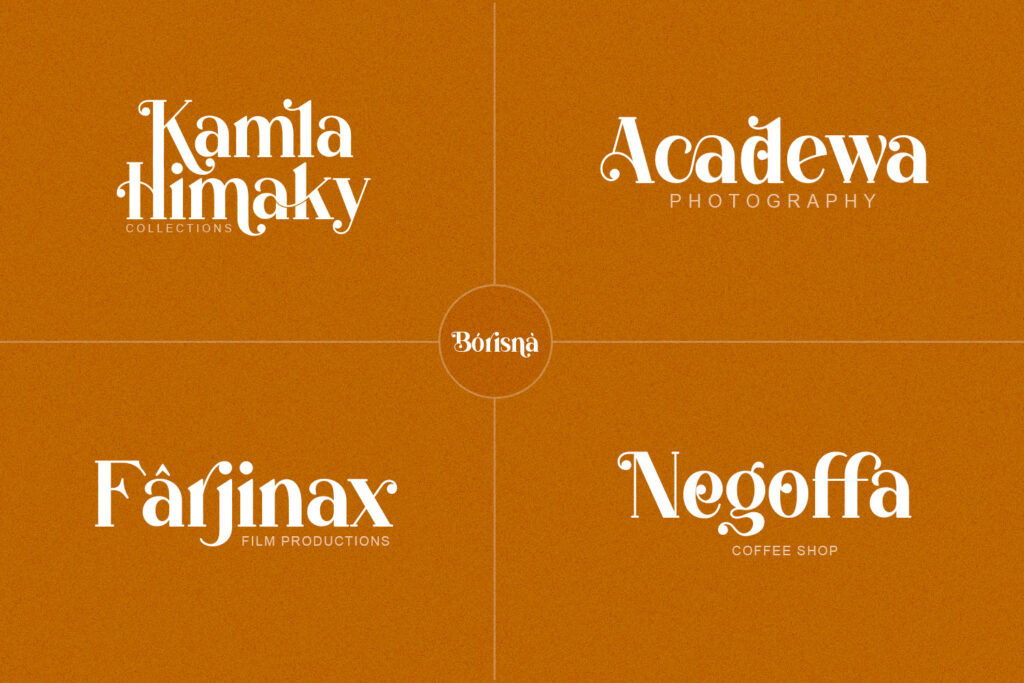
Borisna Font presents a clean, contemporary look with soft curves and stylish character. It works beautifully for genres that aim for a modern yet timeless feel, encouraging artists to integrate its warm visual tone into their CD covers for a distinctive and memorable presentation.
3. Bourne Display Font
Bourne Display Font brings bold personality and striking geometry, making it perfect for albums that need dramatic visual impact. Its attention-grabbing structure suits rock, metal, and experimental genres, inviting creators to express their boldest artistic identity with this standout font.
4. Domina Display Serif Font
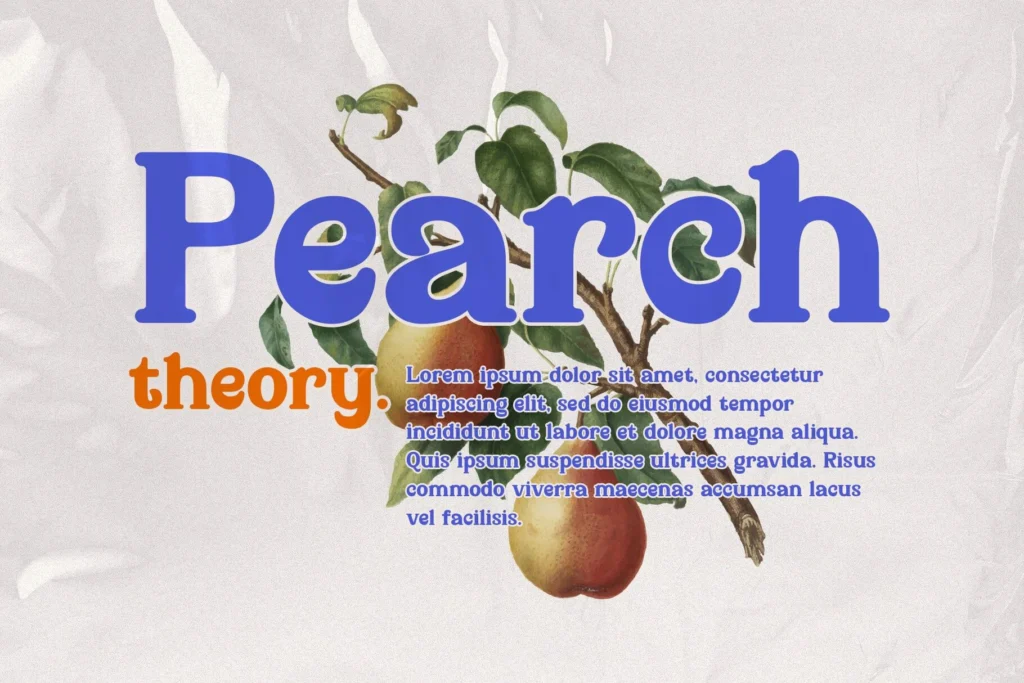
Domina Font offers a luxurious mix of classic serif elegance and artistic flair. With its confident posture and statement-making style, it supports musicians looking to express depth and sophistication on their album artwork, motivating designers to experiment with its stylish features.
5. Drive Ryder Font
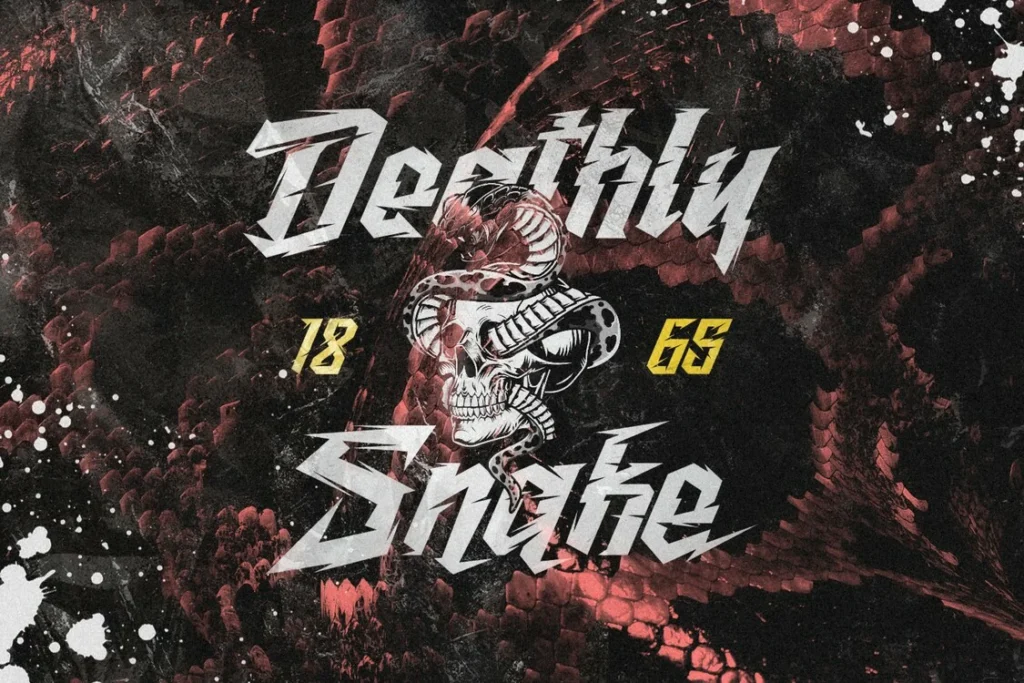
Drive Ryder Font captures a sense of motion, attitude, and retro energy. With its adventurous look, it suits rock, alternative, and cinematic album designs, encouraging artists to infuse dynamic personality into their CD covers through this energetic typeface.
6. Garo Serif Font
Garo Serif Font emphasizes clarity and refinement, making it ideal for artists who want a professional yet approachable appearance for their covers. Its balanced serif elements offer a timeless feel that prompts musicians to craft visually compelling album identities.
7. Gantic Modern Serif Font
Gantic Modern Serif Font blends modern minimalism with elegant serif structure. Its neat proportions make it versatile across genres, inspiring creators to elevate their artwork with a typeface that communicates confidence and artistic discipline.
8. Funky Holiday Retro Groovy Font
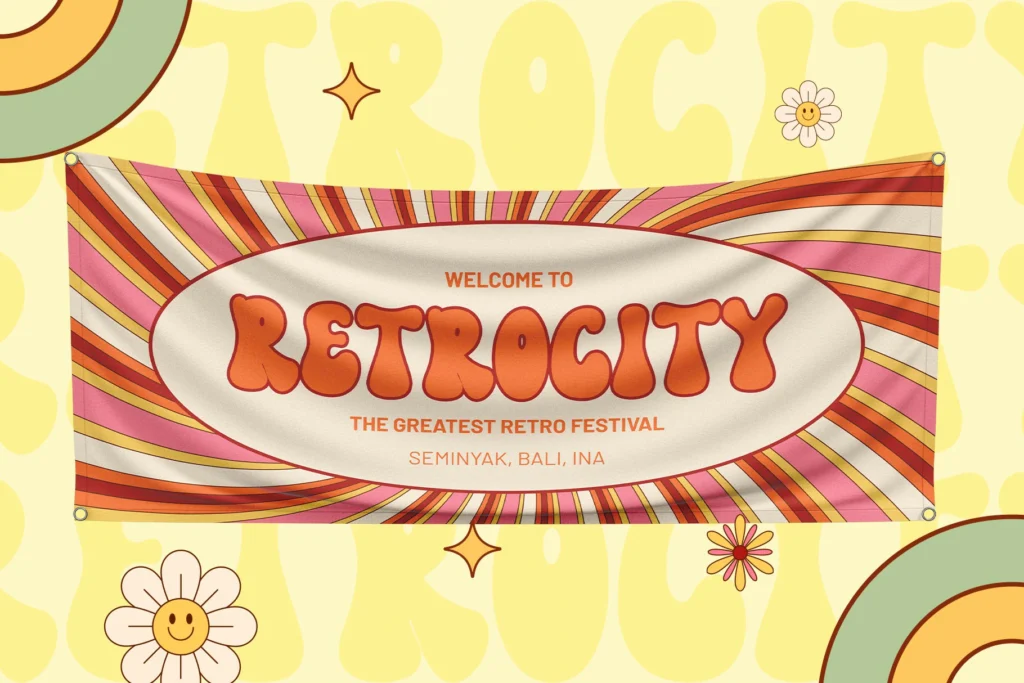
Funky Holiday Font is bursting with nostalgic charm and playful curves. It is an excellent choice for upbeat, retro, or funk-inspired albums, inviting musicians to express joy and personality through its lively visual rhythm.
9. Gencha Sans Serif Font
Gencha Sans Serif Font features a sleek, contemporary design that excels in clarity and versatility. Perfect for pop, electronic, and modern indie covers, it motivates artists to embrace simplicity and modernity in their album visuals.
10. Grogie Modern Serif Font
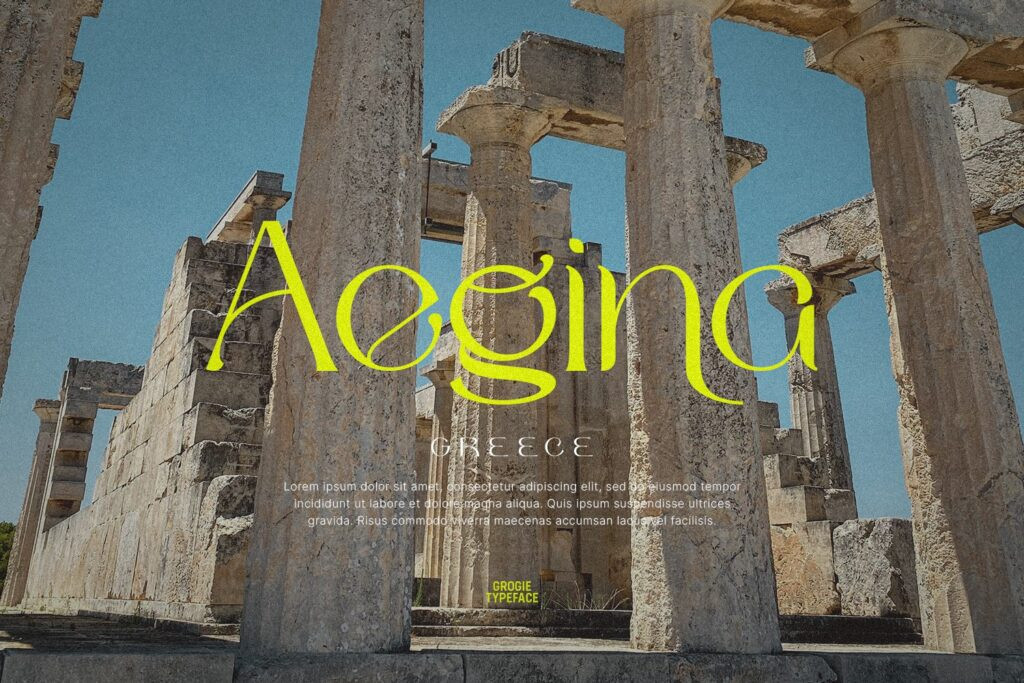
Grogie Modern Serif Font combines bold structure with sophisticated details. Its stylish presence works well for artists seeking a memorable and upscale identity, encouraging them to craft strong and expressive titles on their CD covers.
11. Hipo Font
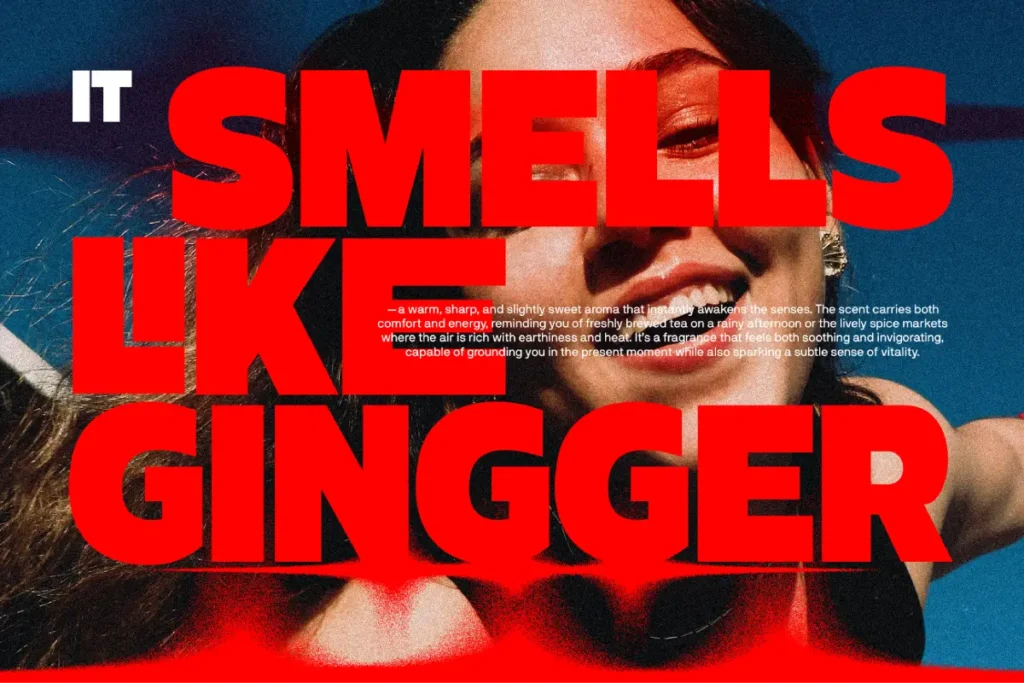
Hipo Font offers a friendly and quirky personality with unique curves and a charming silhouette. Ideal for playful or lighthearted genres, it motivates album creators to explore more expressive and approachable CD cover styles.
12. Hypogea Bold Display Typeface Font
Hypogea Font is powerful and assertive, making it a perfect choice for high-impact album designs. Its dramatic features encourage musicians to make bold artistic statements that stand out instantly on shelves and digital platforms.
How many fonts should you use on a CD cover?
Typically two: one for the artist name and one for the album title.
Are display fonts a good choice for CD covers?
Yes, especially for rock, punk, and metal genres where dramatic visuals are important.
Should the font match the music genre?
Yes. Matching the genre helps build audience expectation and strengthens branding.